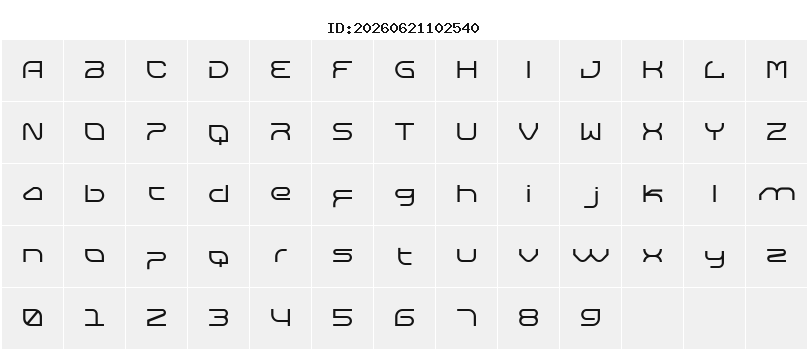
Neofolia Preview
• Font Name: Neofolia
• Full Font Name: Neofolia Regular
About Neofolia.ttf
Neofolia.ttf is a modern, elegant sans-serif font designed for ultimate readability and visual harmony. Perfect for branding, headlines, web design, and print materials.